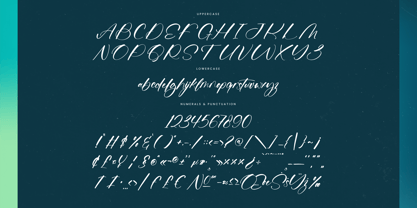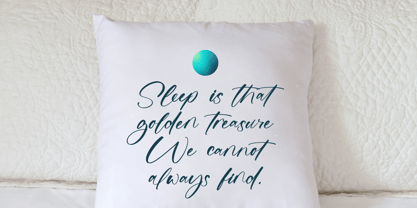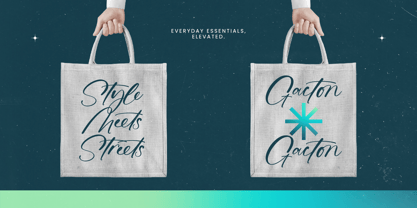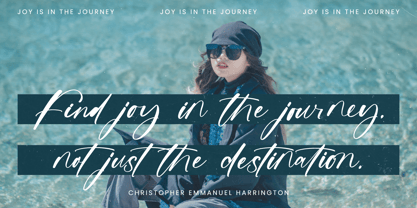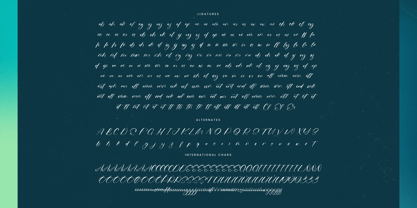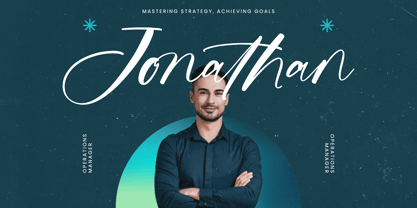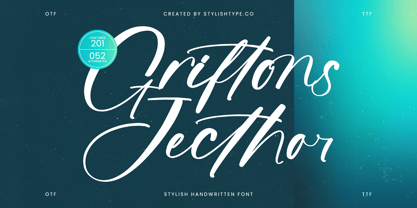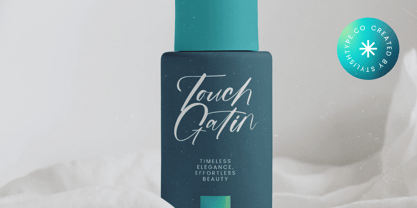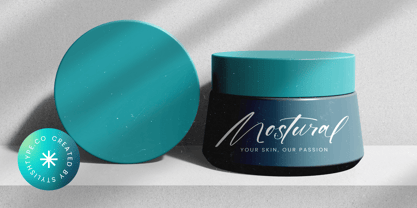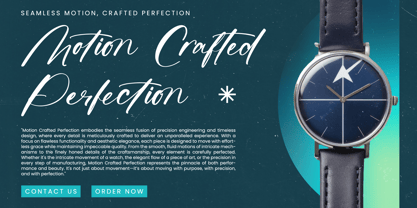
Griftons Jecthor
The Griftons Jecthor Font Family was designed by Heru Utama Putra and published by Stylishtype Studio. Griftons Jecthor contains 2 styles and family package options.
Griftons Jecthor - Stylish Handwritten Font , from Stylishtype, Suitable for any projects such as: logos, branding projects, homeware designs, product packaging, mugs, quotes, posters, shopping bags, t-shirts, book covers, name card, invitation cards, greeting cards, label, photography, watermark, special events, and all your other luxury and beautiful projects that need a Luxury Script taste.